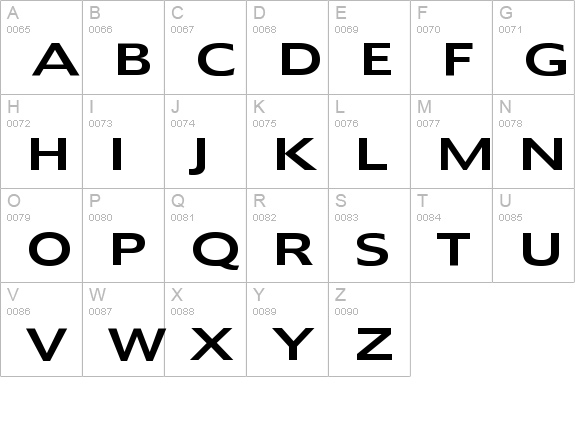
Humana Wd Font Details
Humana Wd is a modern and stylish font that exudes elegance and sophistication. With its clean lines and unique design, this font is perfect for a wide range of projects, from branding to packaging to editorial design. The versatility of Humana Wd makes it a must-have for any designer looking to elevate their work to the next level. What sets Humana Wd apart is not only its stunning aesthetics, but also the fact that it is completely free to download. Yes, you read that right - this high-quality font is available for free at FontsMarket.com. So why wait? Elevate your designs today with Humana Wd and see the difference it can make.